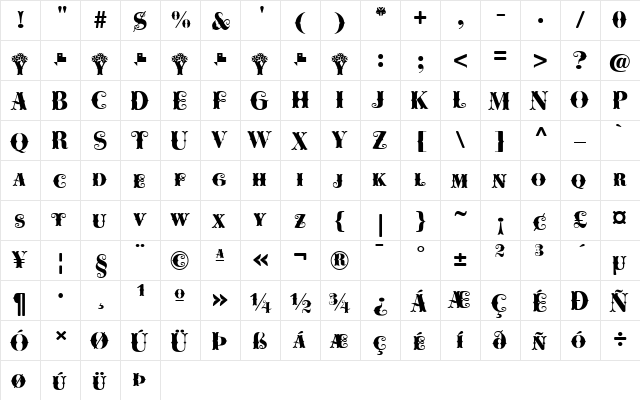
Cowboya Bifurcated Regular
| Foundry | deFharo |
| Designer | Fernando Haro |
Design Context for Cowboya Bifurcated Typeface
Cowboya Bifurcated echoes the hand-painted signage and woodblock typography of the American frontier, with a warm, rugged personality.
A natural fit for craft spirits, ranch branding, rodeo events, and Americana-inspired design work.
Font Pairing: Combine Cowboya Bifurcated with a simple slab or neutral sans — period-accurate companions reinforce the vintage feel without competing for attention.
Pro Tip: Use Cowboya Bifurcated for short, impactful bursts of text — it shines in poster headlines and product names rather than extended copy.